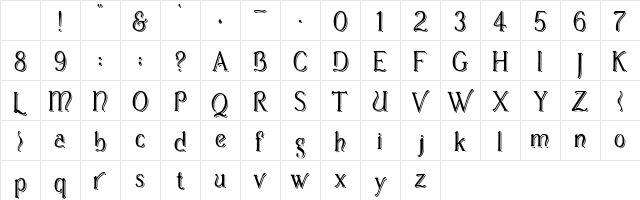
Complete Casua_Shopsign Regular glyph index. Displaying only characters natively supported by Casua_Shopsign Regular font.
Casua_Shopsign is a composed and adaptable typeface that performs quietly and consistently across a wide range of design contexts.